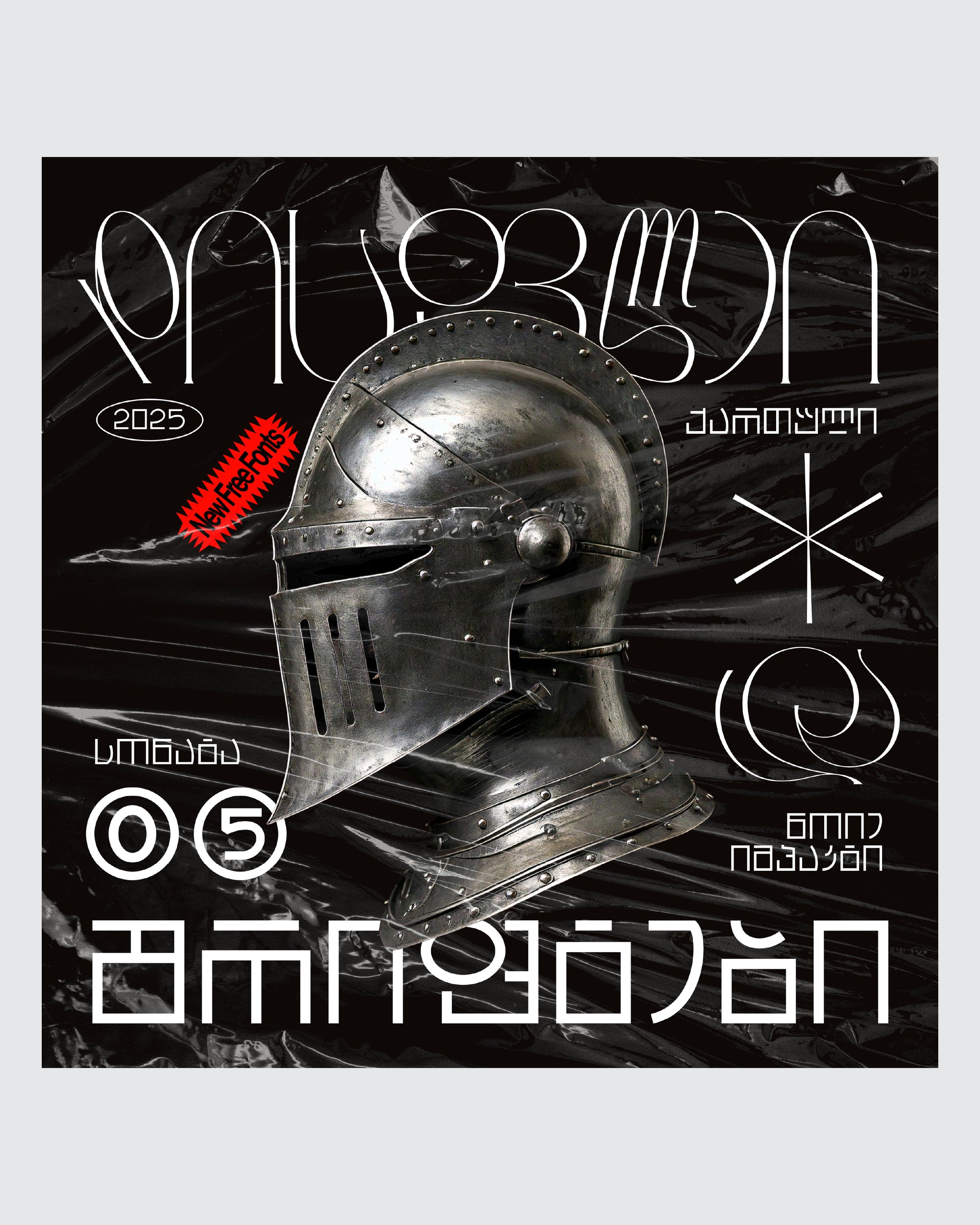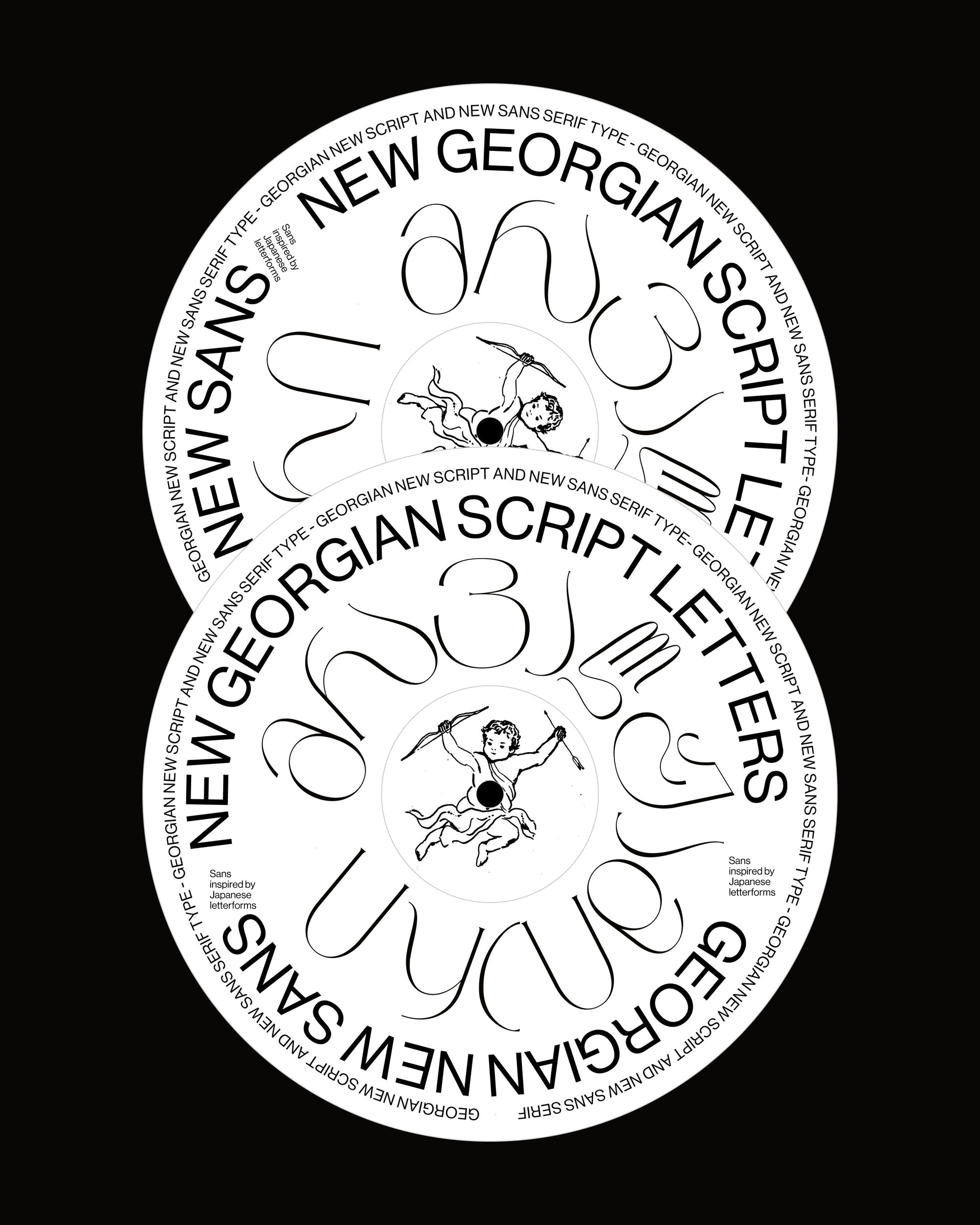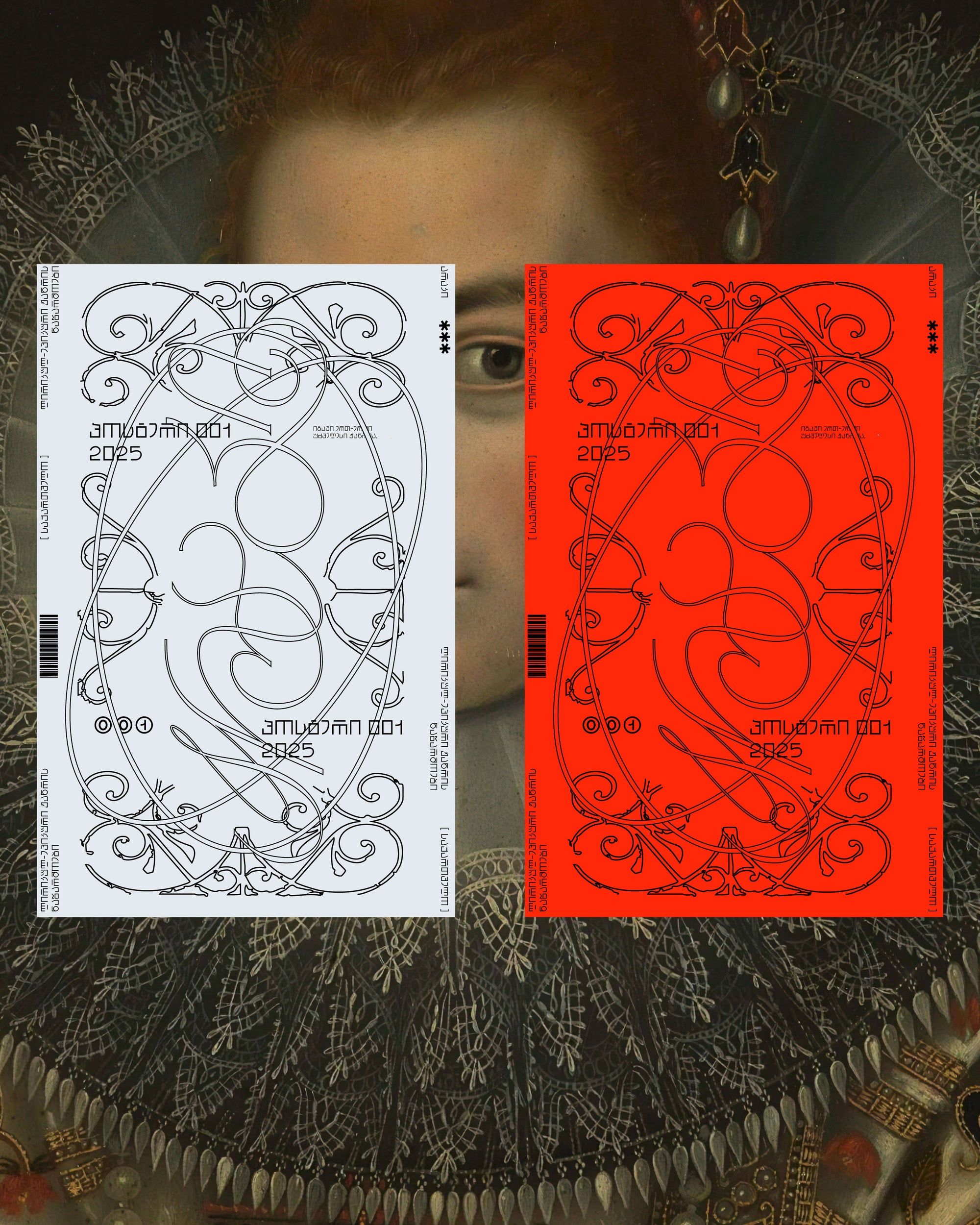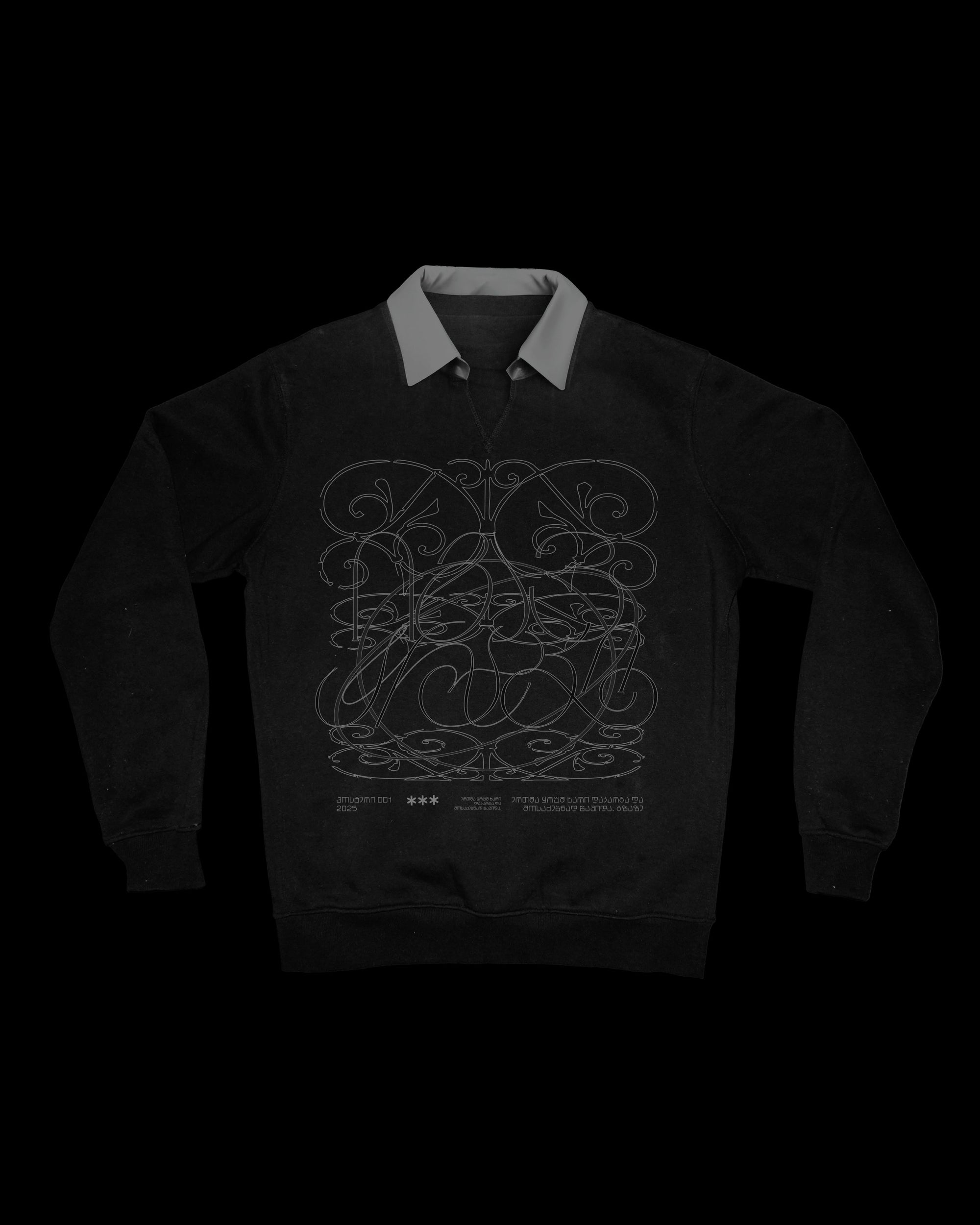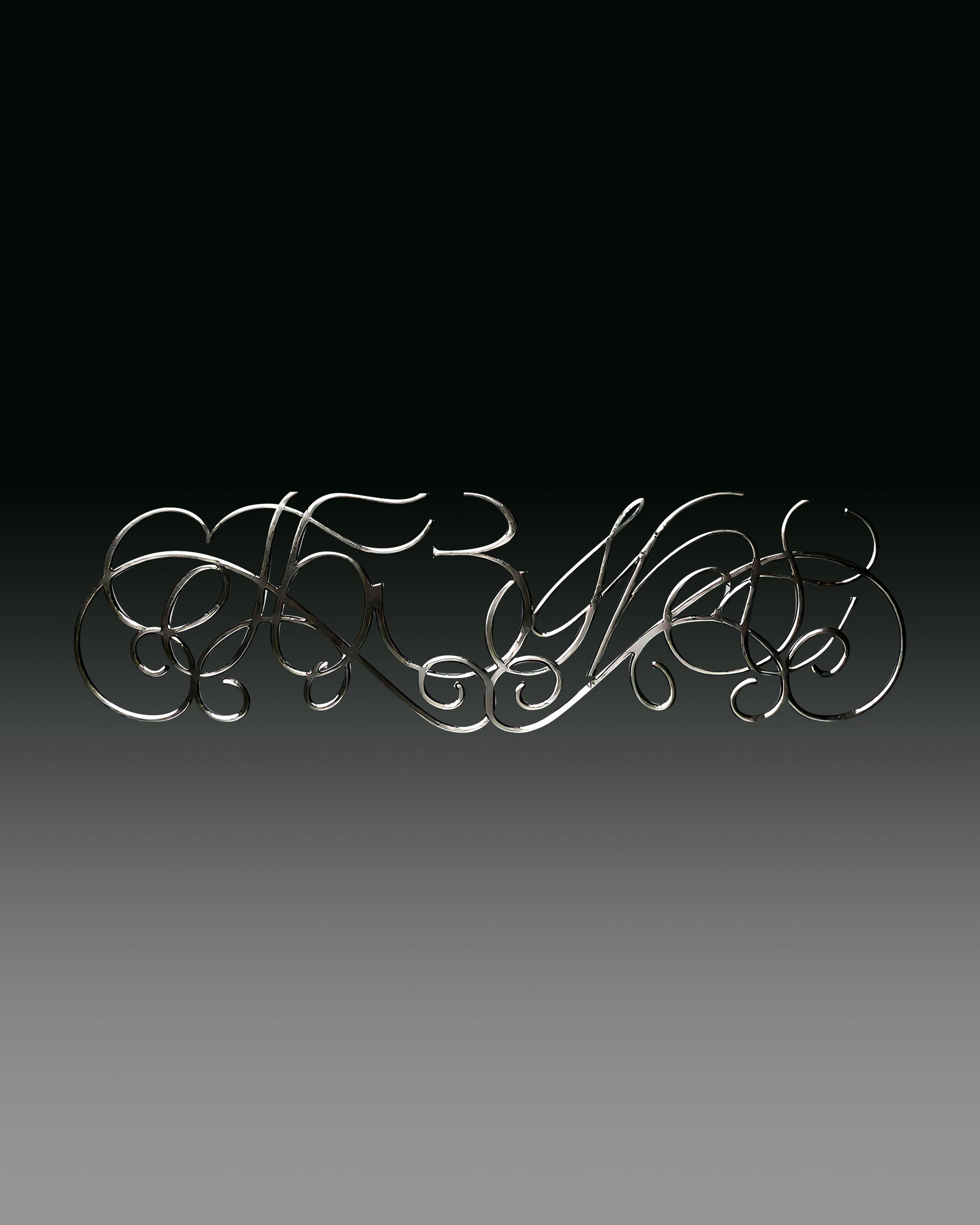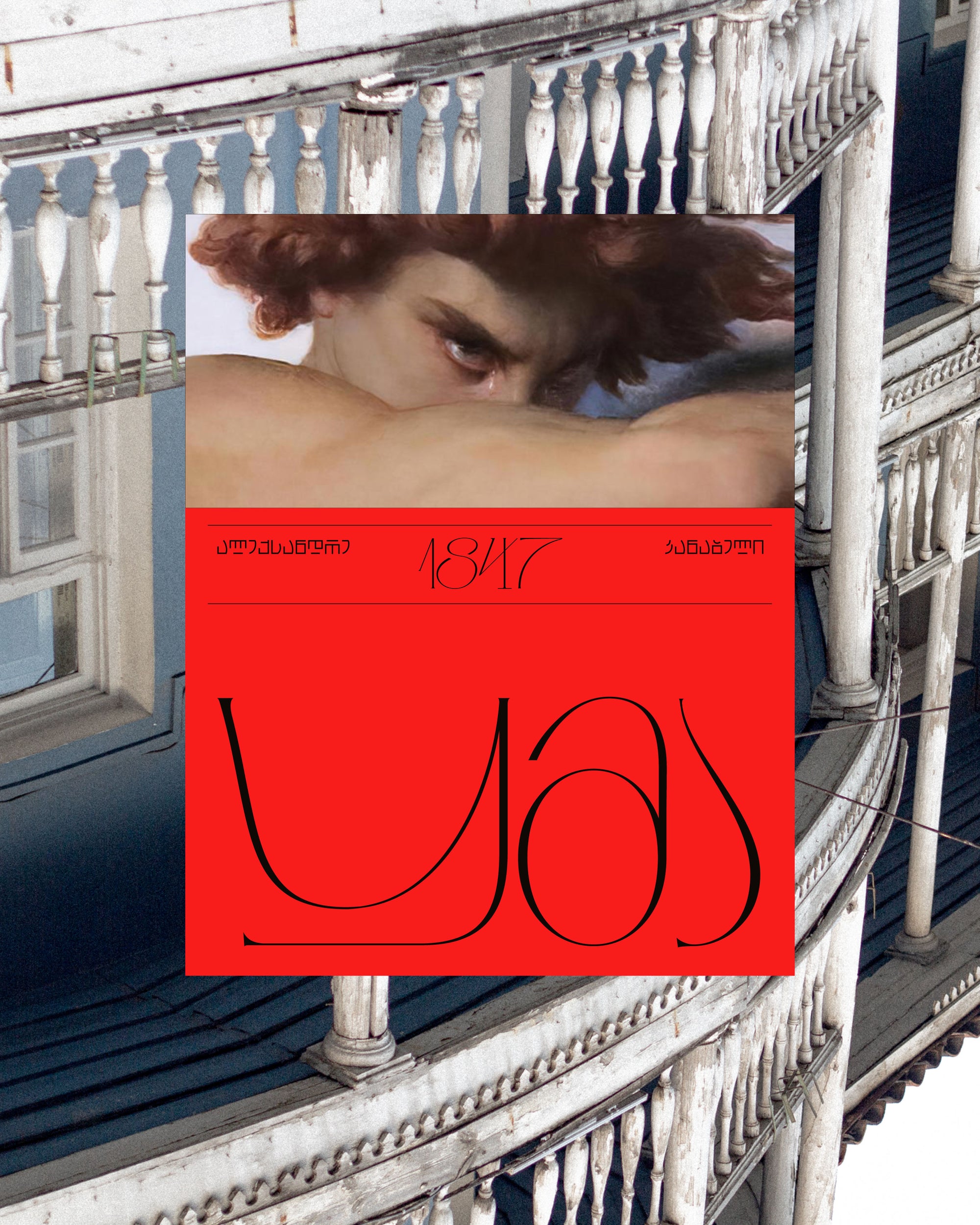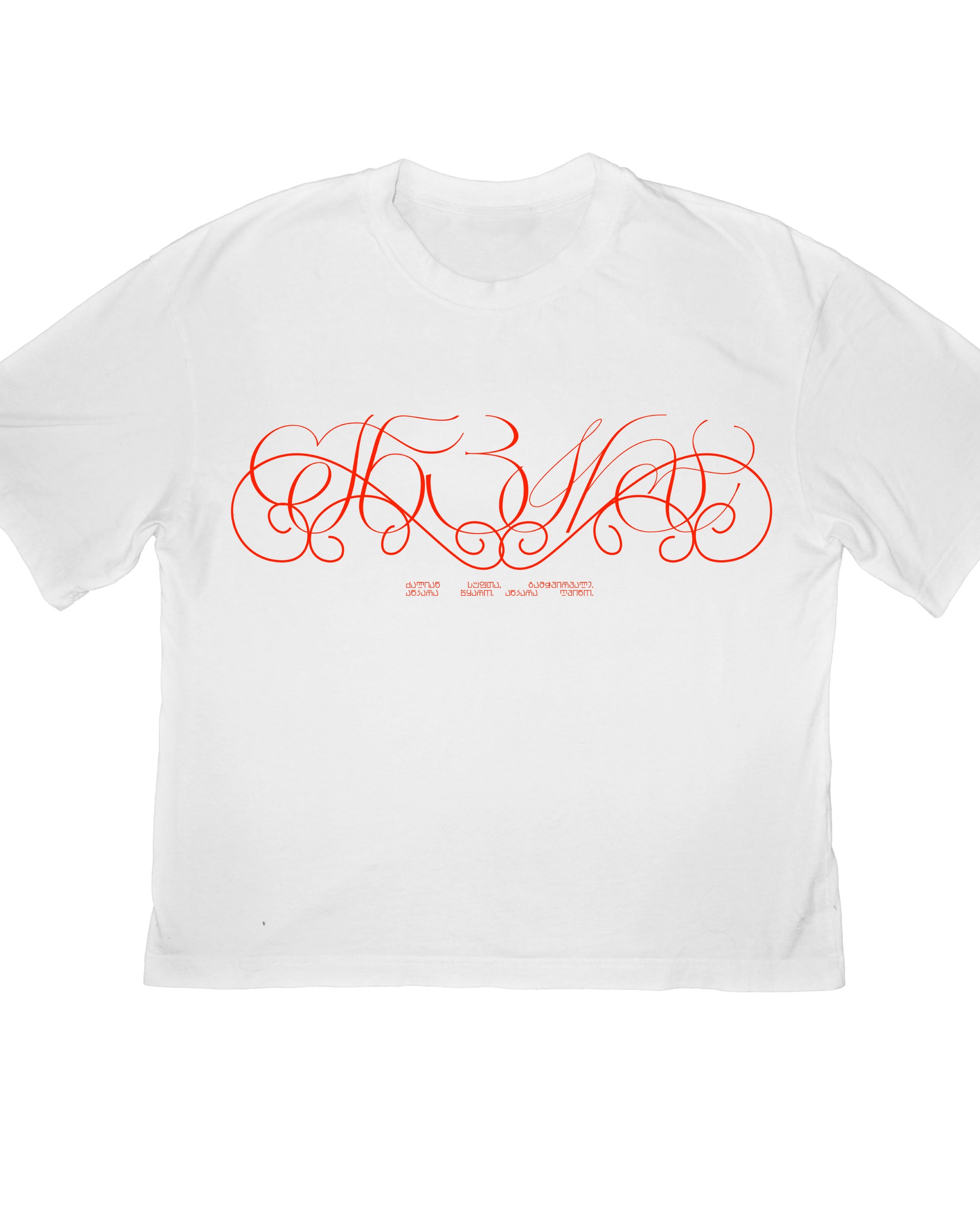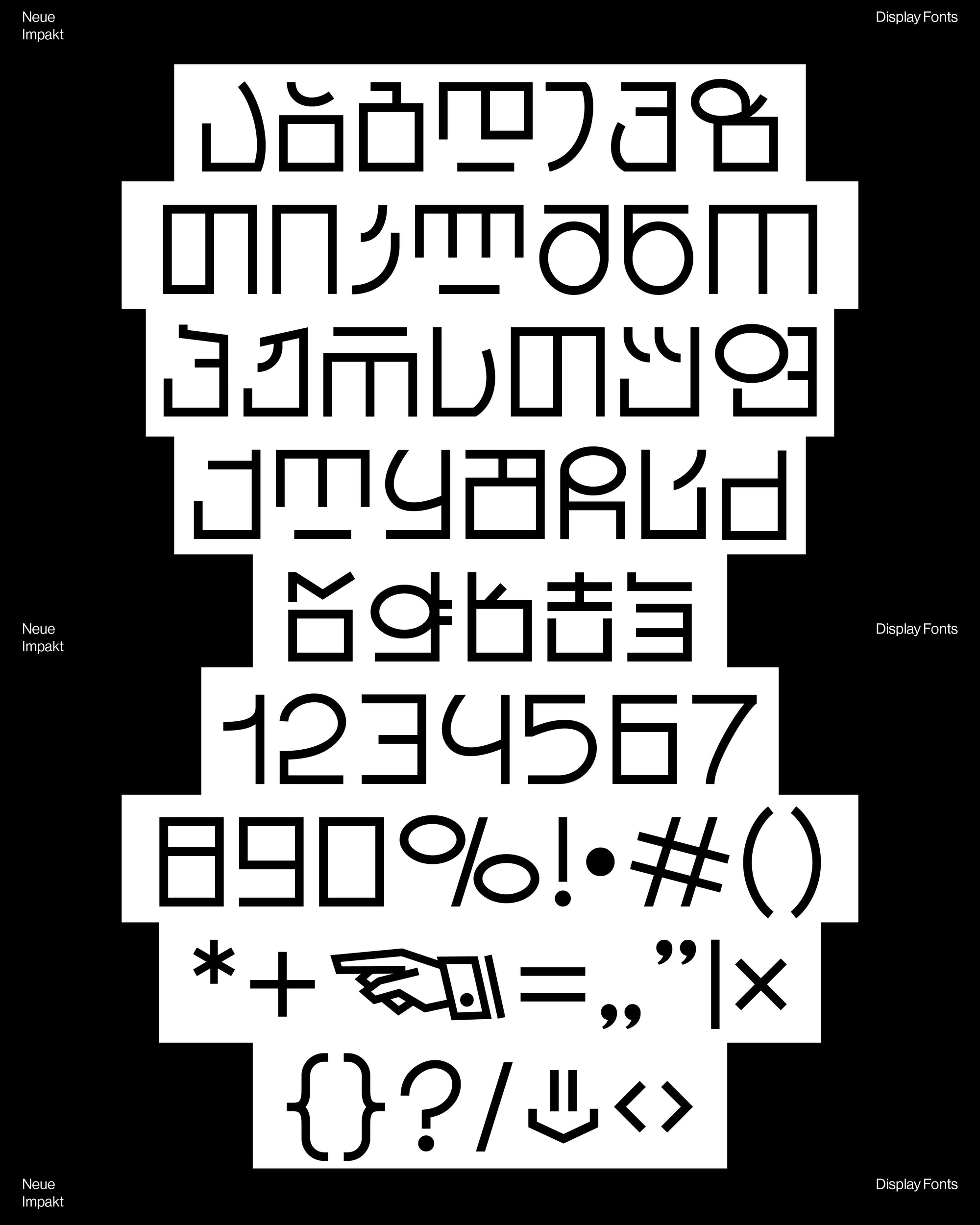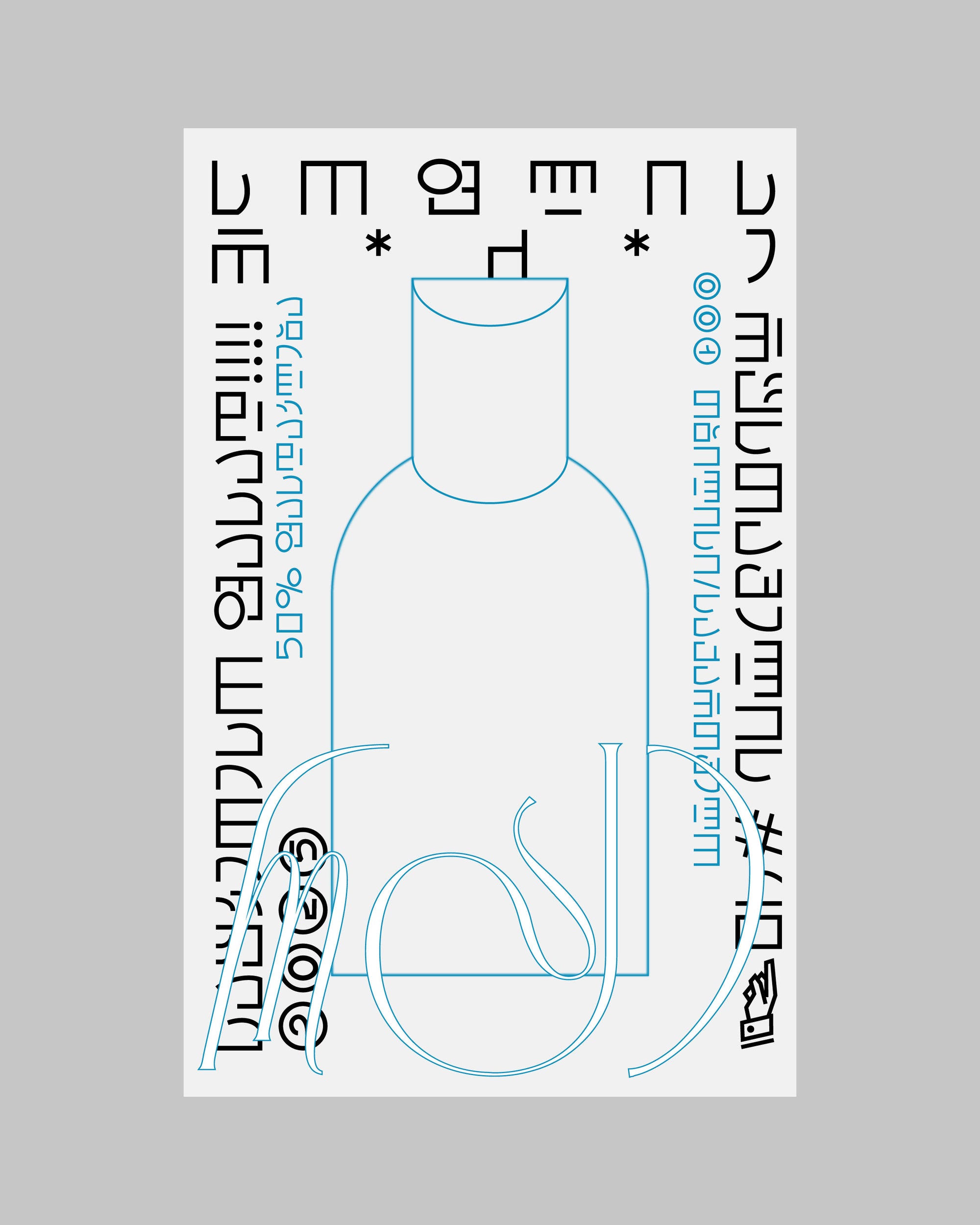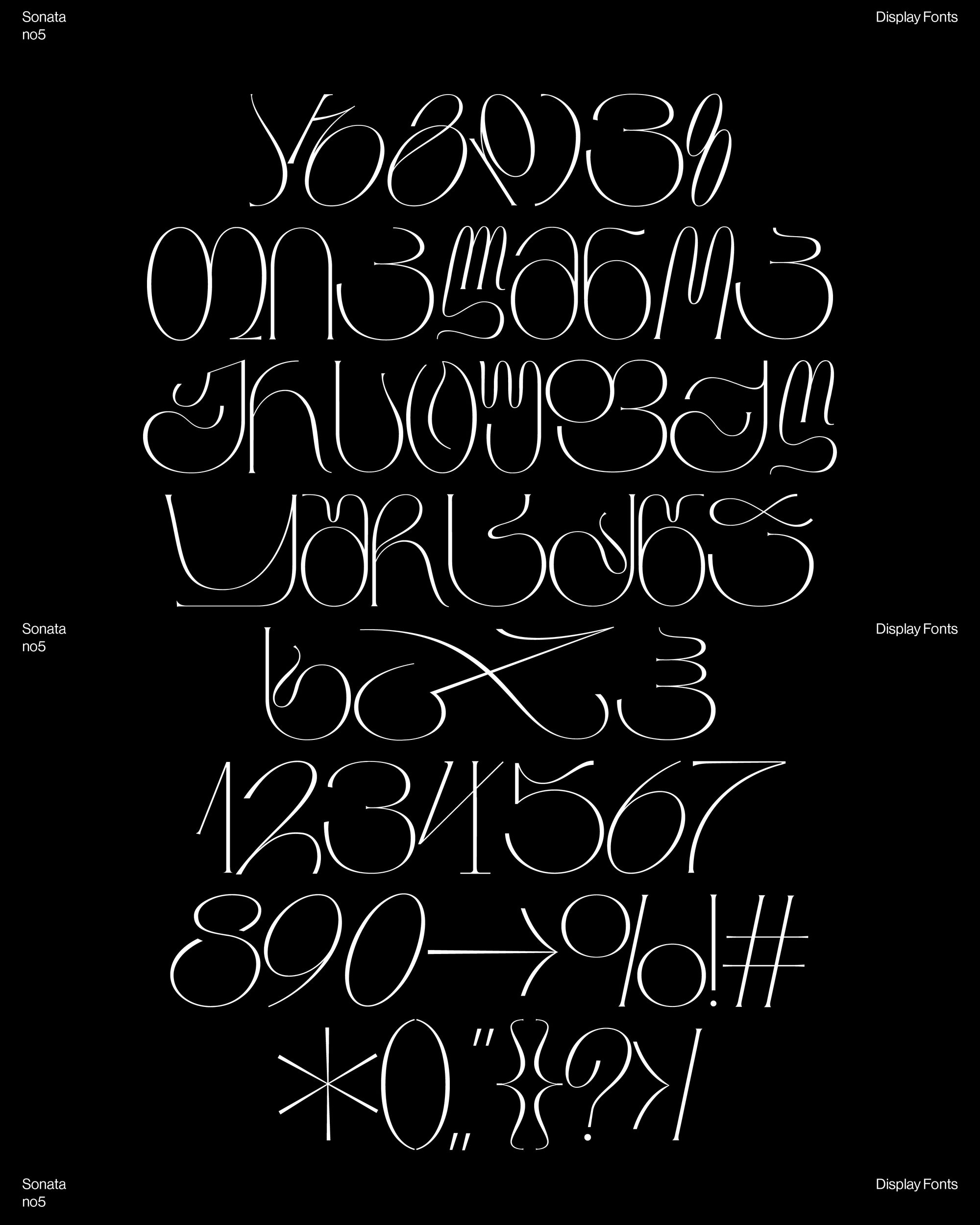
Neue Impakt & Sonata No.5
Due to the unique challenges and distinctive forms of the Georgian alphabet, Low Contrast Studio embraced the opportunity to redefine its conventional appearance. The availability of display free fonts suitable for both headlines and body text in Georgian is quite limited. Neue Impakt was created to bring a more geometric structure to the Georgian alphabet while preserving its ornamental essence. Inspired by Asian scripts, it maintains both readability and character. Sonata No.5 is like "a classical song for the eyes"—highly ornamental, embracing the organic beauty of the Georgian script and emphasizing its full potential. Delicate yet expressive, it captures the intricate elegance of the language. This presentation showcases how these two fonts complement each other, demonstrating their versatility and the unique ways they can be used together.
Neue Impakt: 175 glyphs
Sonata No5: 159 glyphs
Character set: Georgian